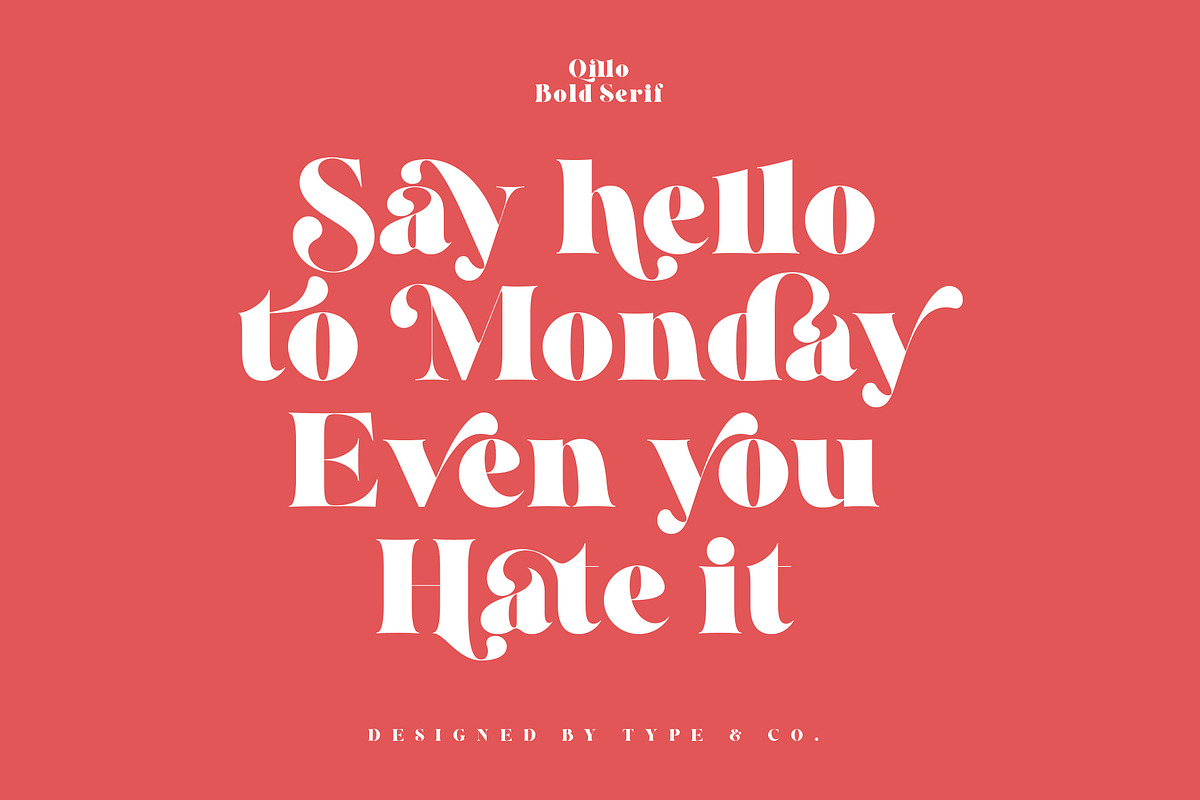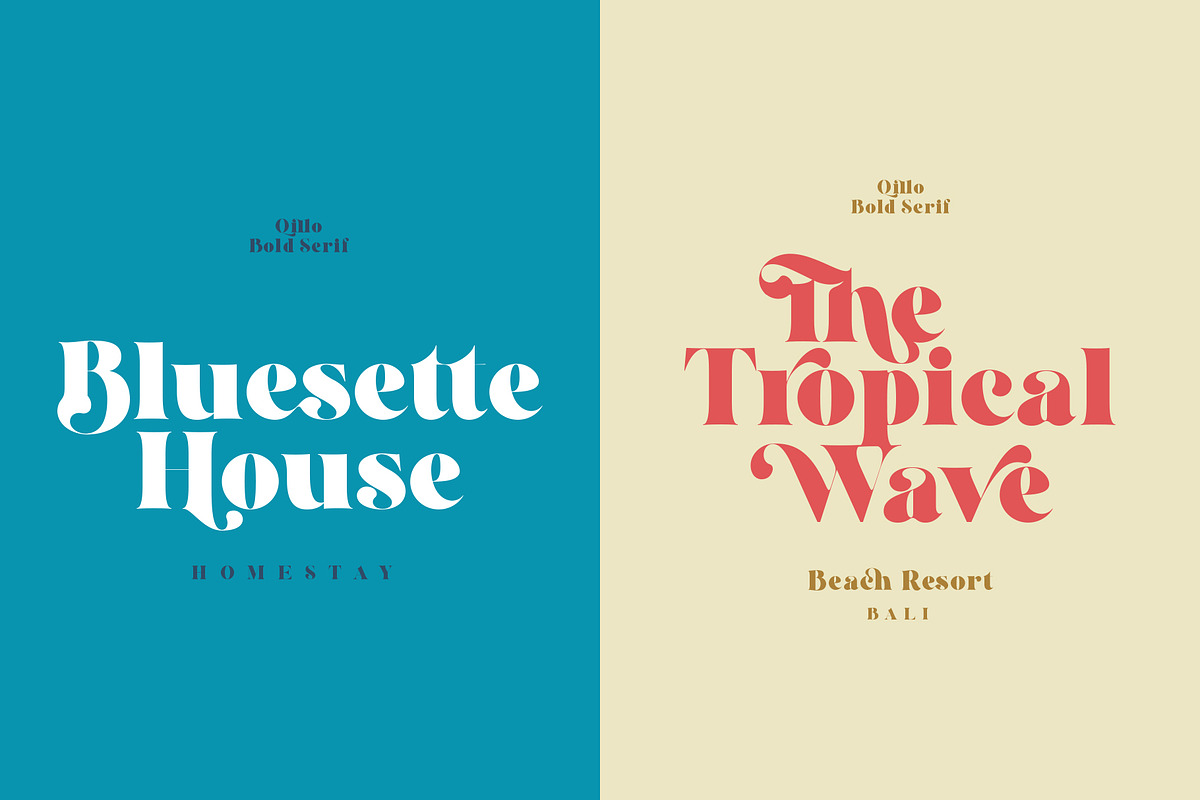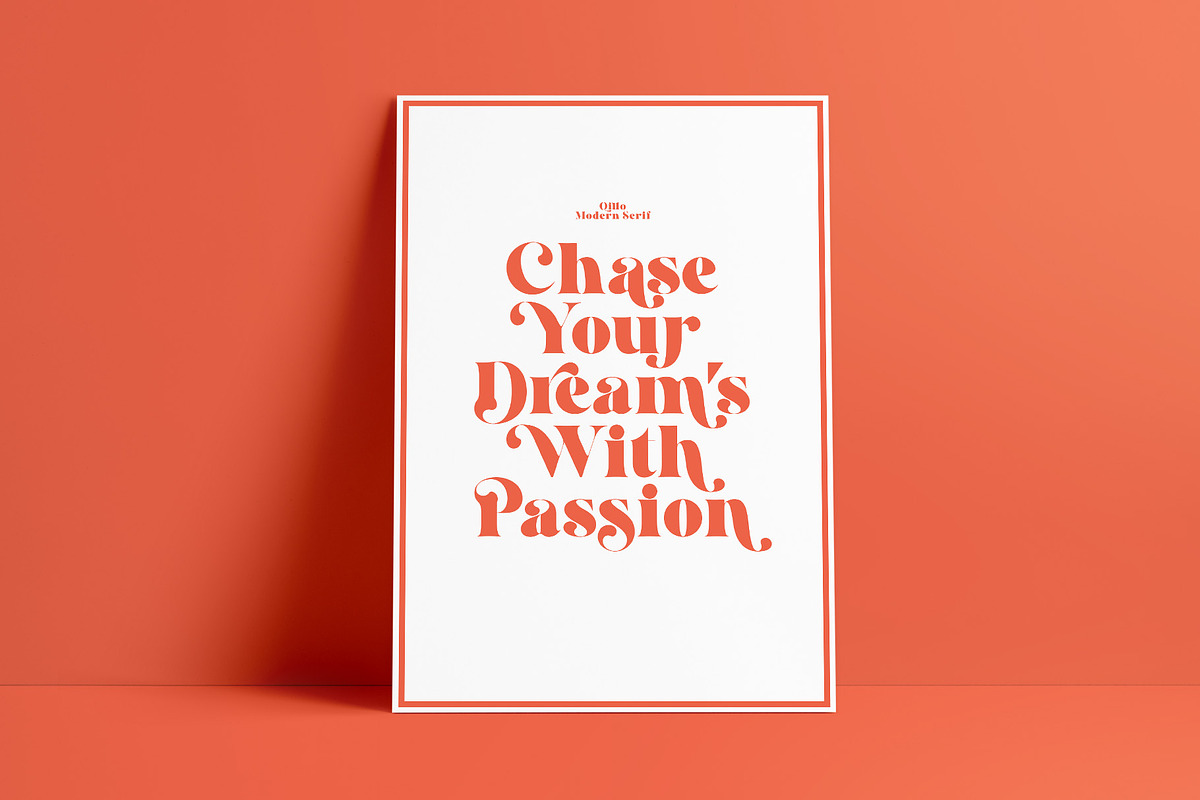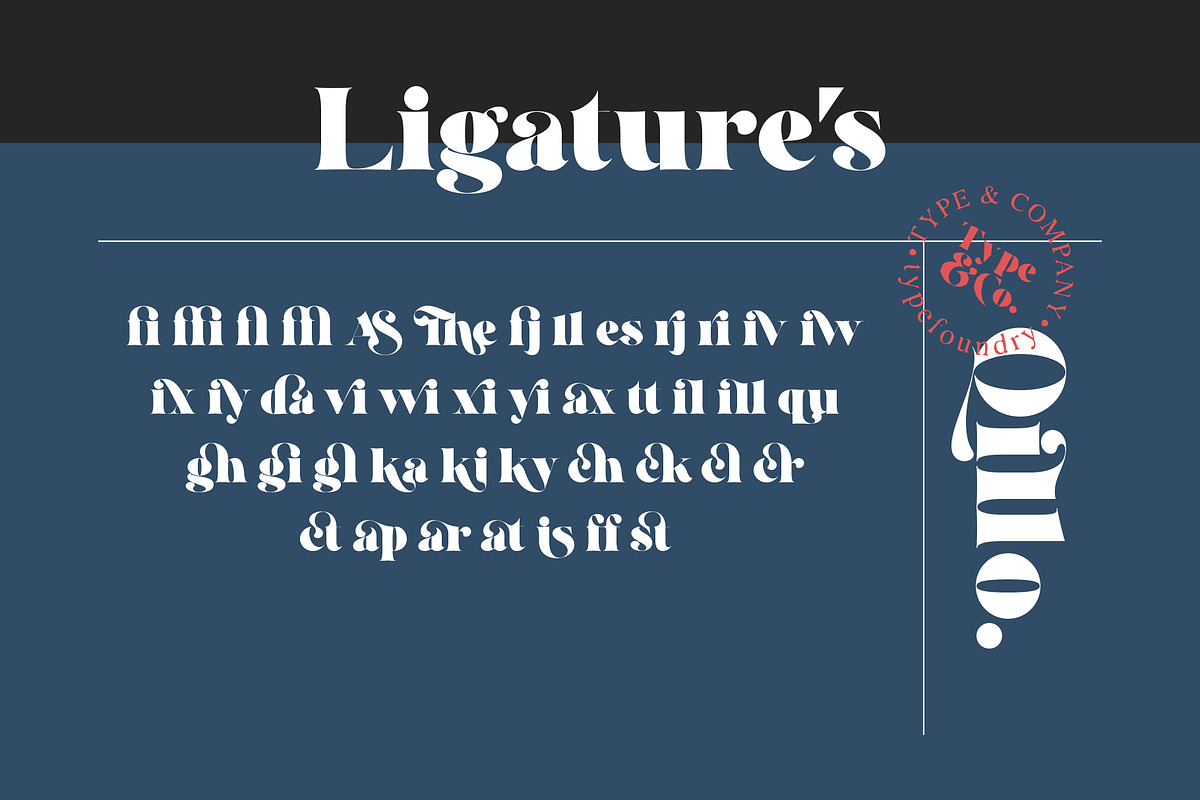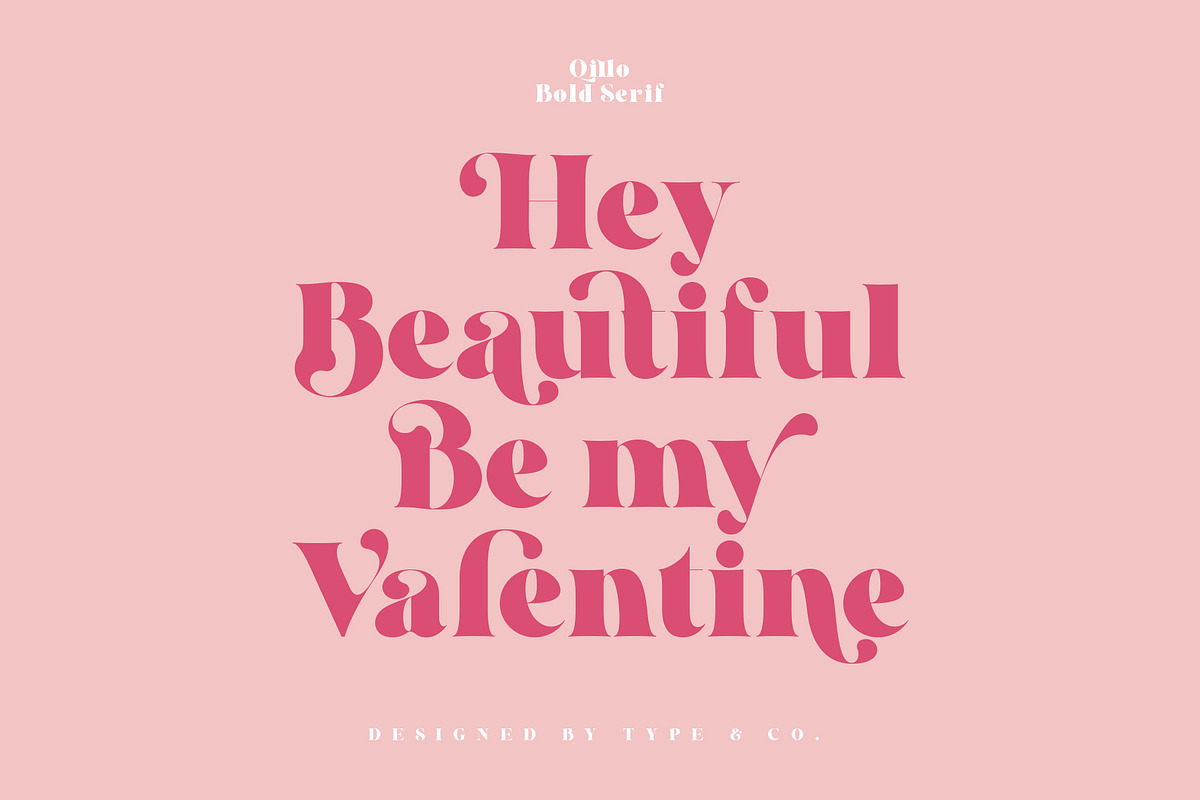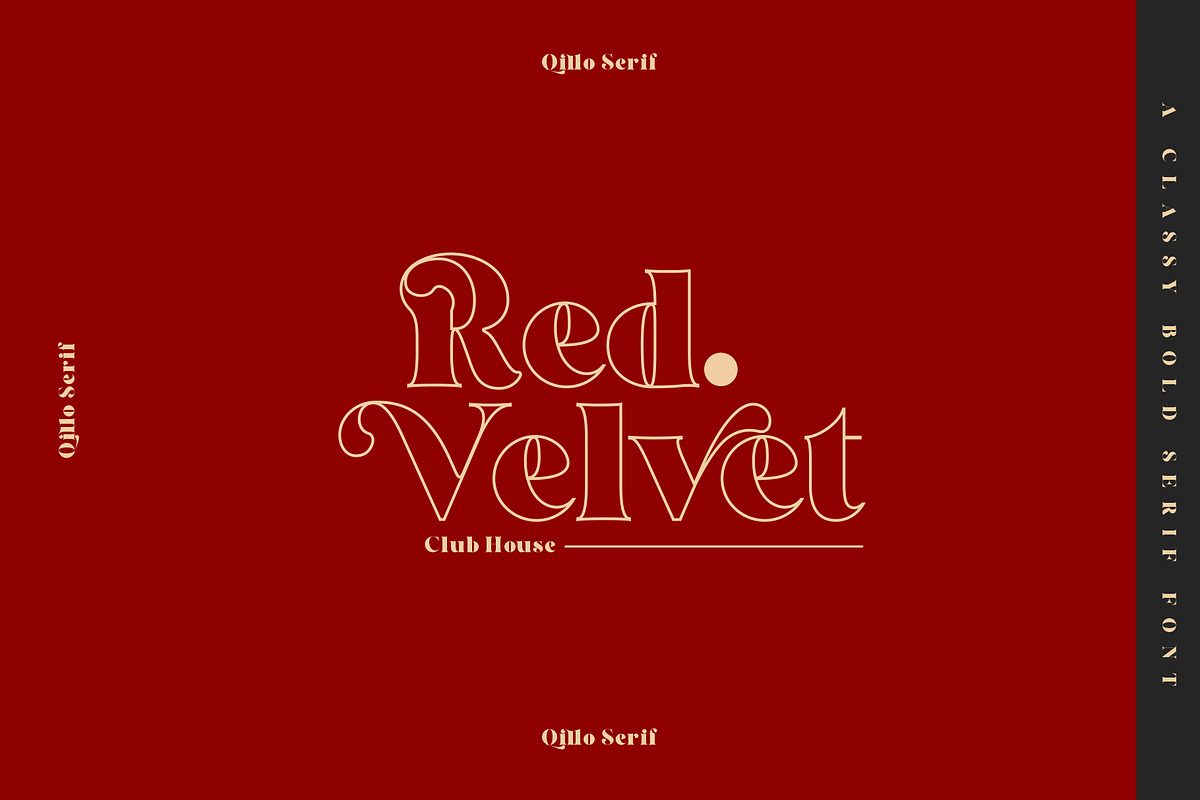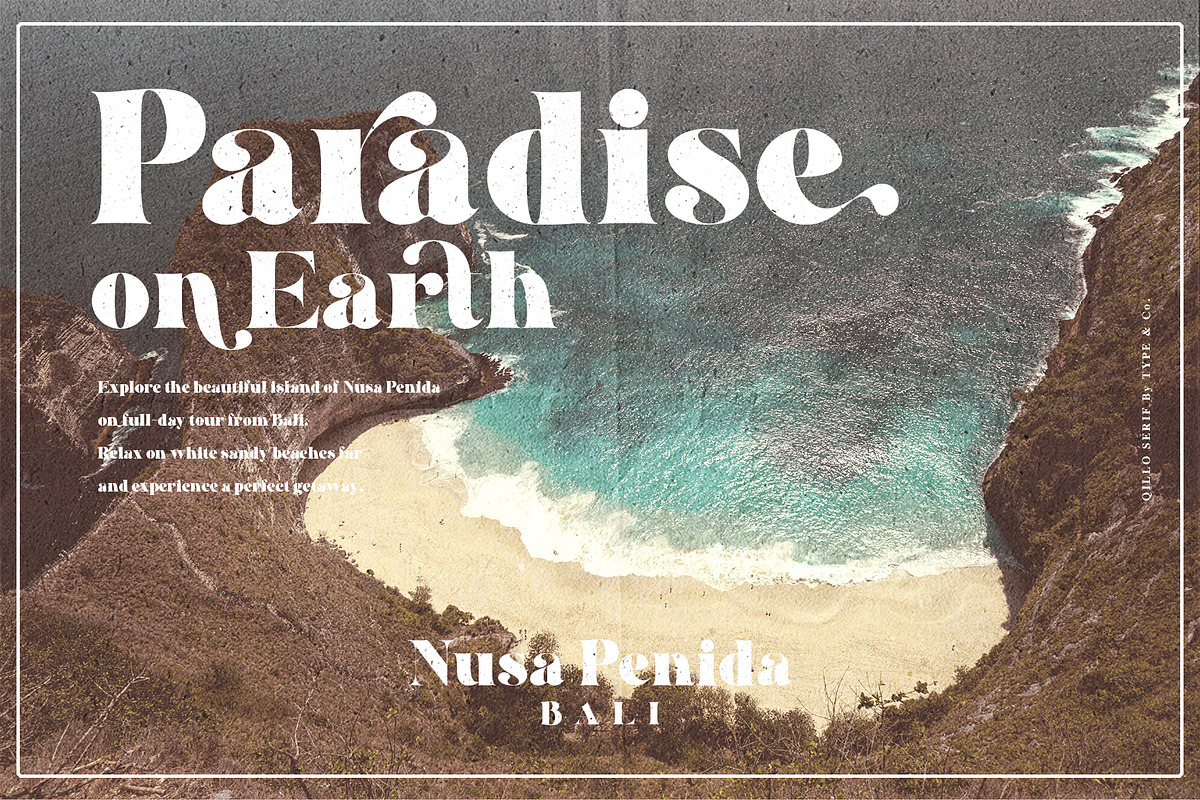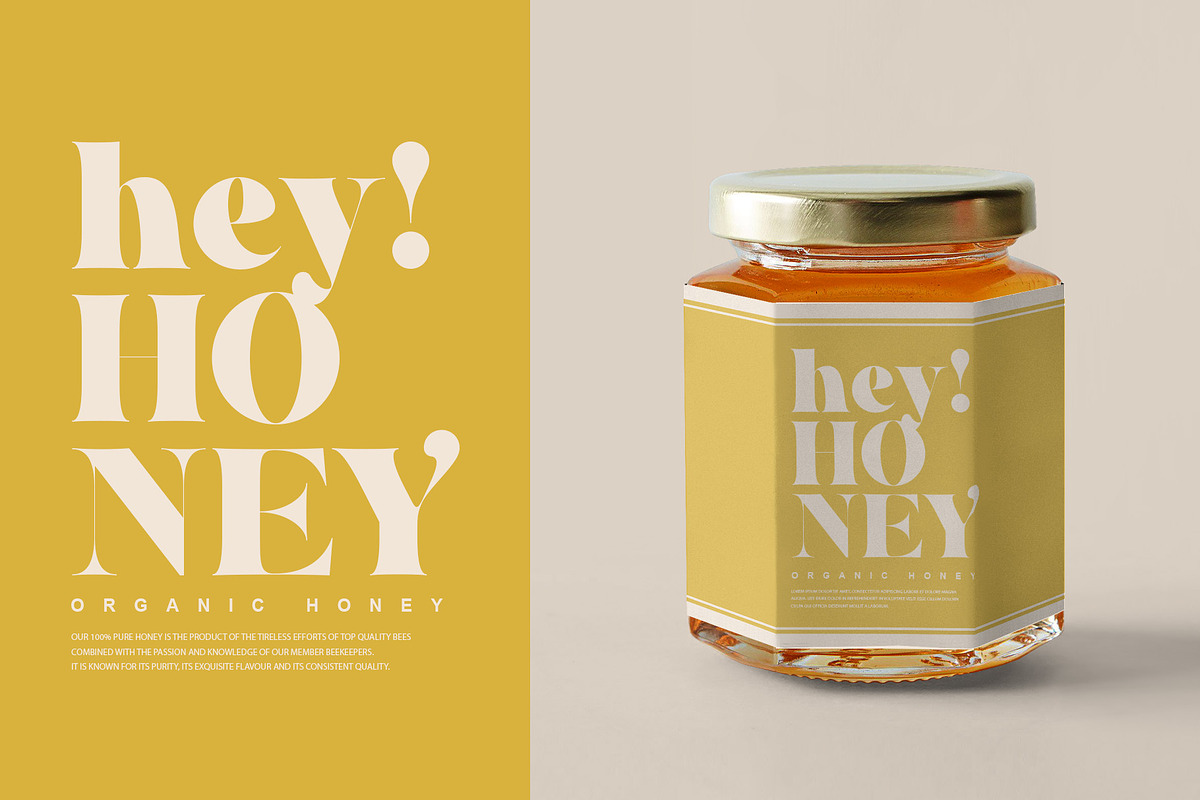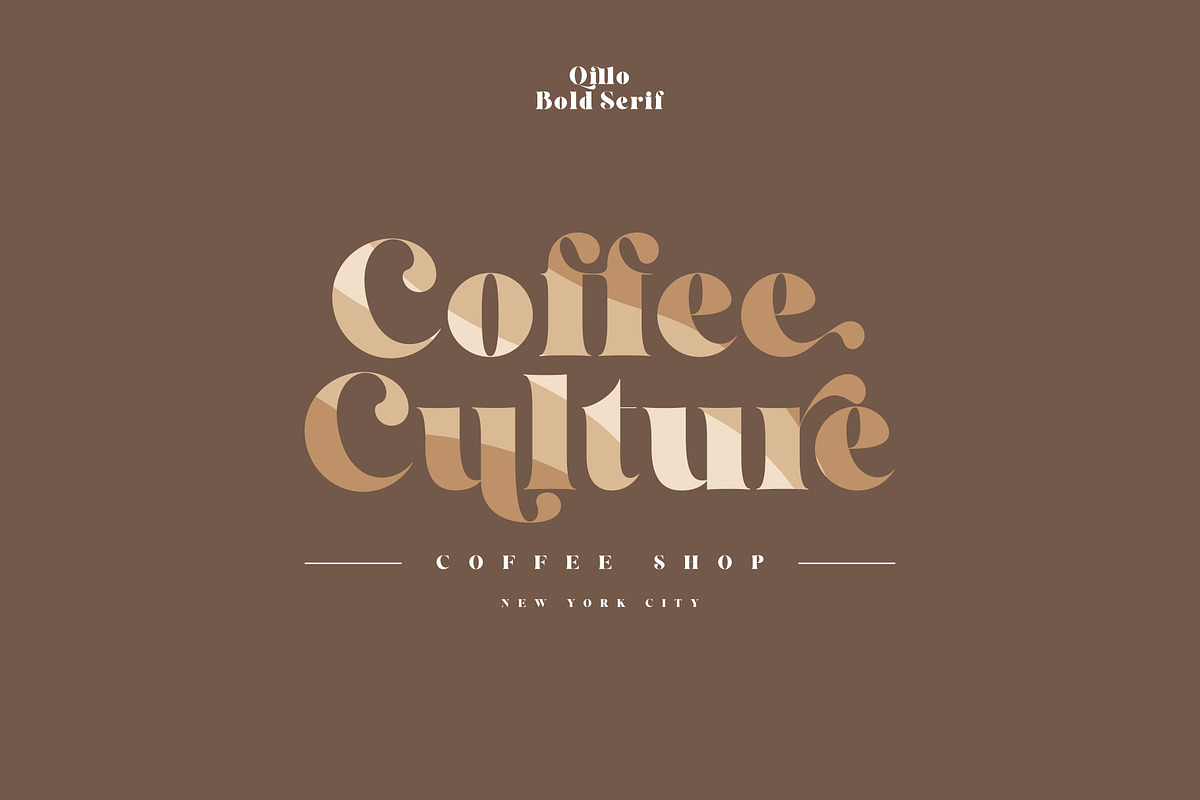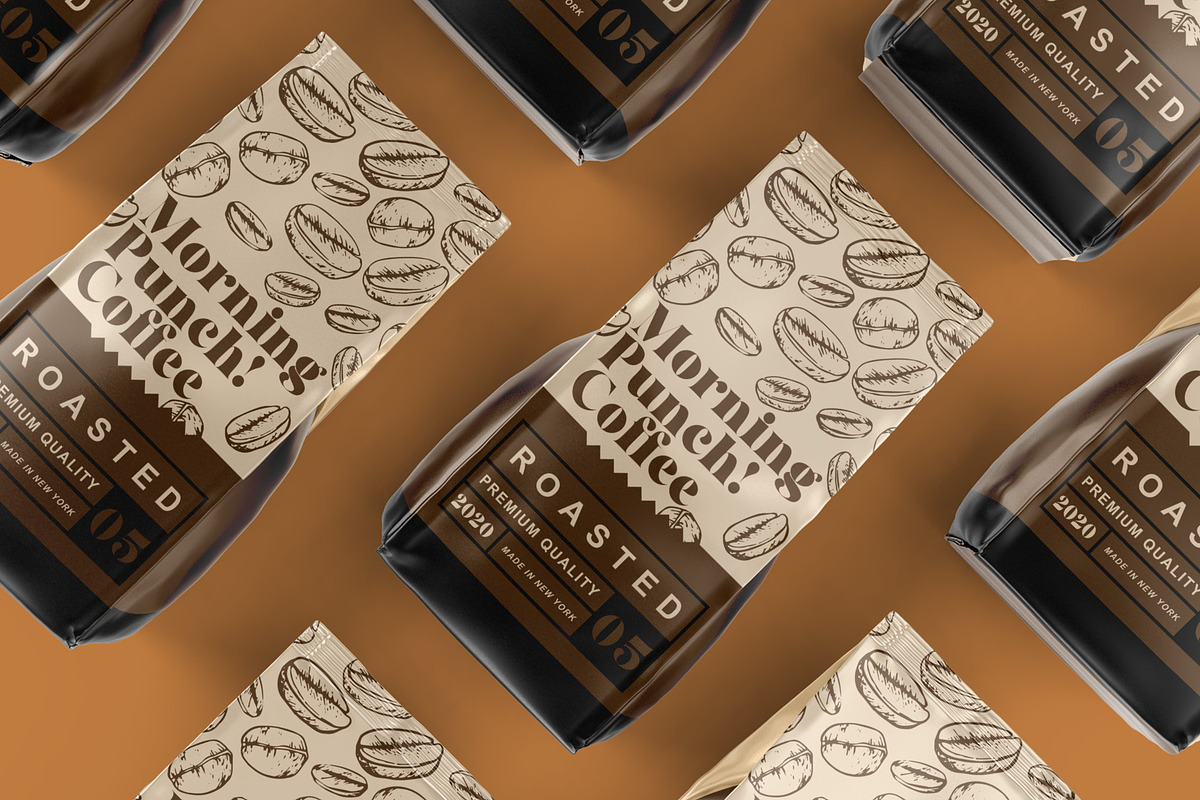
Qillo - Contrast Bold Serif
Qillo Serif a classy bold serif font can fit all your design projects including wedding designs, logos & branding, advertisements, product designs & packaging, poster design, social media posts, and more.
Qillo serif comes with OpenType features, alternate characters, and ligatures so you can design by playing around, mix and match and get freer your creativity.